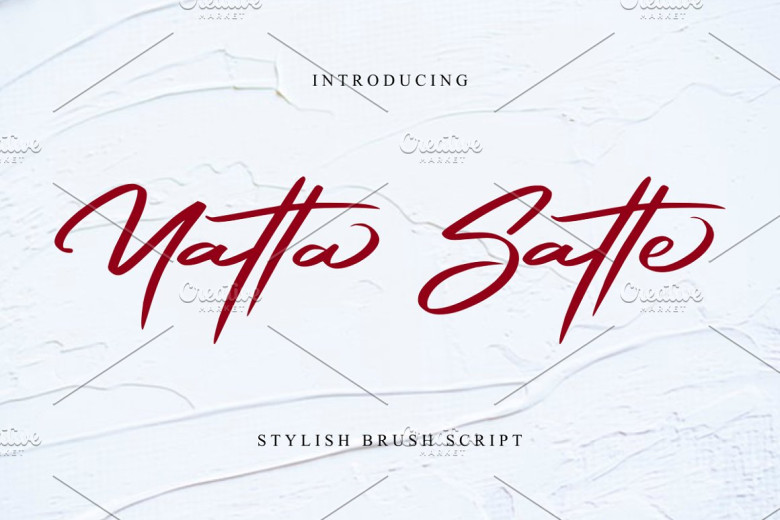
Yatta Satte Font
Yatta Satte font – a modern, fresh script with its signature style of handwriting – makes an elegant, natural and stylish impression – ideal for all tasks that require handwriting such as logo design, merchandise clothing displays and display panels. Marietta Sussaffe font can also be great for logo creation as well.
Yatta Satte Brush Script Font